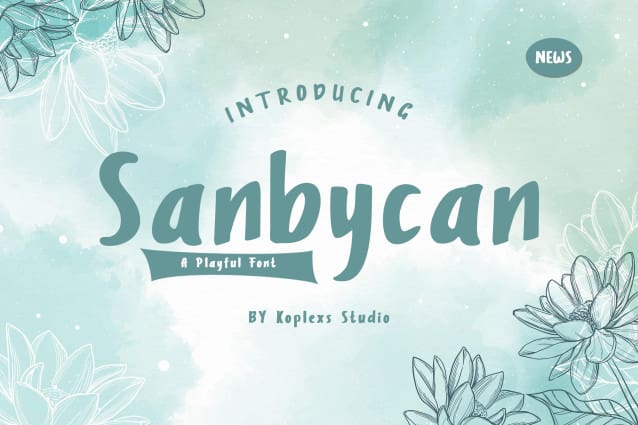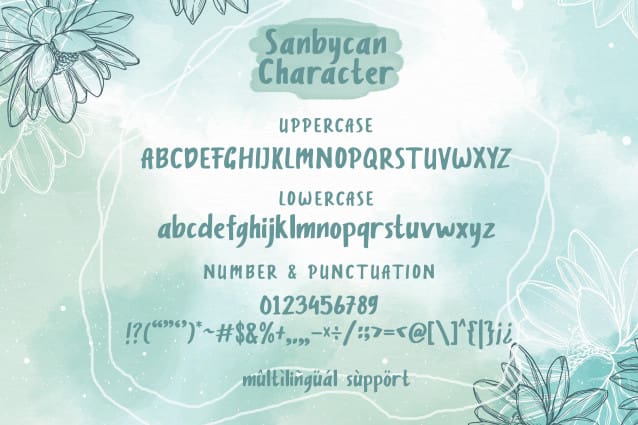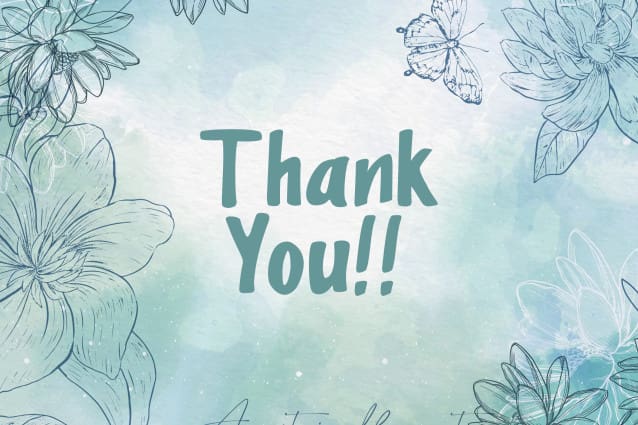
Sanbycan Playful Font
Sanbycan Playful Font a is a playful, child-like typeface inspired by my father’s doodles. Every word is a puzzle with pieces changing and shifting as you type.
Sanbycan Playful Font perfect for logo & Branding, watermark, social media posts, advertisements, logos & branding, product designs, label, stationery, logo designs, vintage design, retro design, product packaging, special events or anything that need handwriting taste.